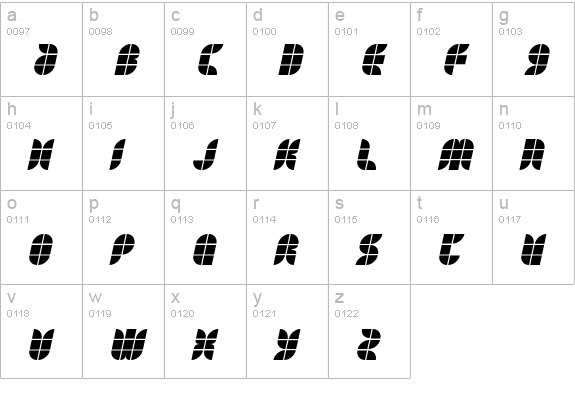
Eat your heart out Font Details
Introducing Eat Your Heart Out font, a captivating and versatile typeface that is sure to make a lasting impression. With its bold strokes and unique letterforms, this font exudes a sense of confidence and creativity that will elevate any design project. Designed with attention to detail, Eat Your Heart Out font is perfect for a wide range of applications, from branding and packaging to posters and social media graphics. Its clean and modern aesthetic adds a touch of sophistication, while its playful undertones inject a sense of fun and personality. What sets Eat Your Heart Out font apart is not just its striking appearance, but also its accessibility. It is freely available to download at FontsMarket.com, making it easily accessible to designers and creatives worldwide. Whether you're a professional graphic designer or a hobbyist, this font offers endless possibilities for your creative endeavors. With multiple weights and styles to choose from, Eat Your Heart Out font allows you to experiment and customize your designs to suit any project. Whether you prefer a bold and impactful statement or a subtle and elegant touch, this font has got you covered. So go ahead, let your imagination run wild and create stunning visuals with Eat Your Heart Out font. Download it for free at FontsMarket.com and embark on a design journey that is bound to leave a lasting impression.